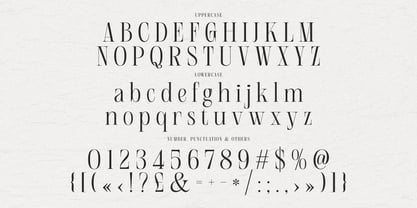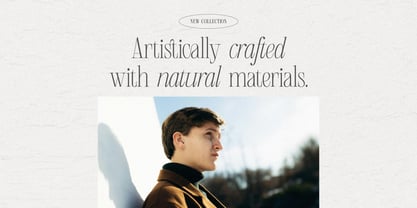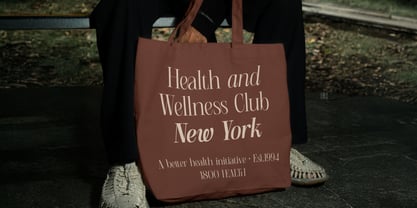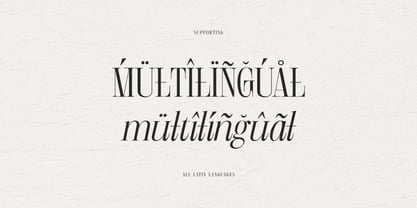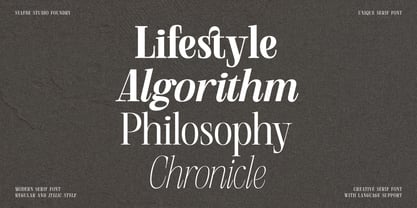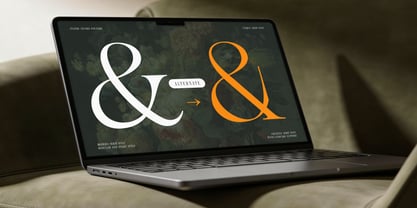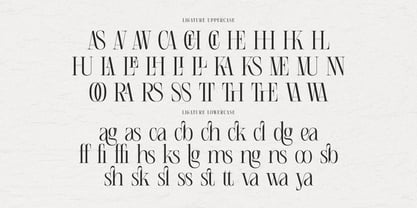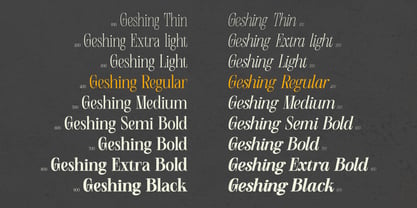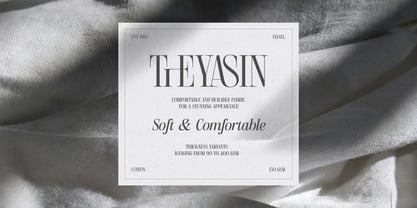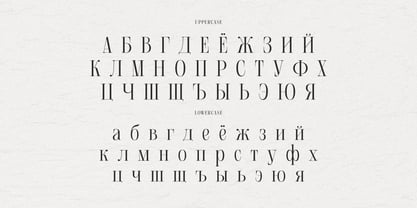
Geshing
The Geshing Font Family was designed by Syafwan Mus and published by Syafbe. Geshing contains 18 styles and family package options.
The “Geshing” font features elegant characters with subtle serif touches and balanced proportions, reflecting the philosophy of elegance, assertiveness, and flexibility in visual communication. Its bold yet flowing letterforms give a professional yet artistic impression, thus conveying a strong message without losing its aesthetics. As a font family, Geshing comes in regular and italic variants with a total of 18 types of styles, providing extensive typographic exploration freedom for various design needs. This flexibility makes it very easy to implement in various fields, from branding, editorial, to digital interfaces, without losing visual consistency and a strong identity.
Geshing